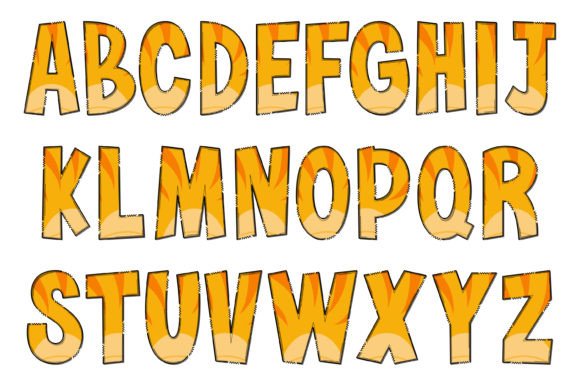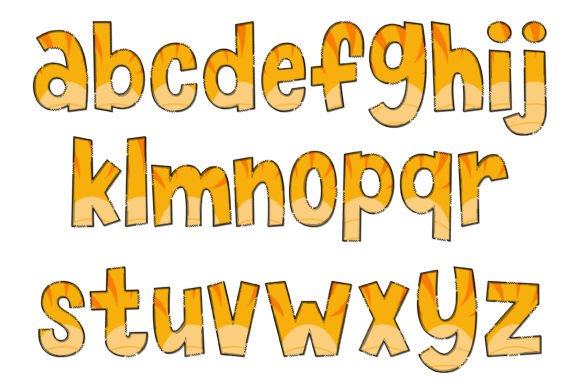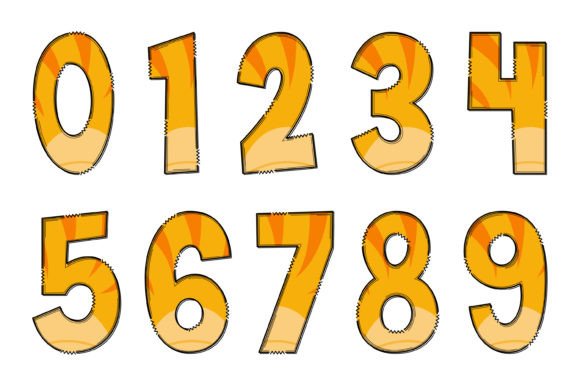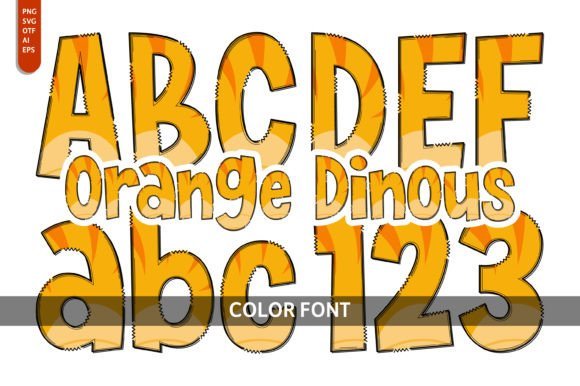
Introduction to Orange Dinous Font
Introducing Orange Dinous color font, a captivating and dynamic typeface inspired by the prehistoric world.
With its vibrant orange tones and intricate details, this font combines the power of the ancient with a modern twist Perfect for projects that demand a bold and adventurous touch with a hint of nostalgia.